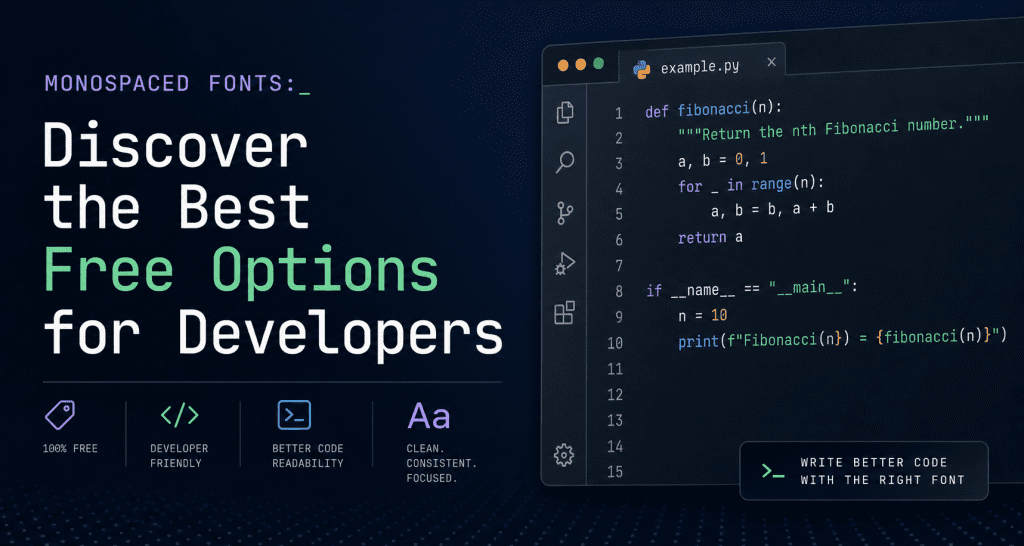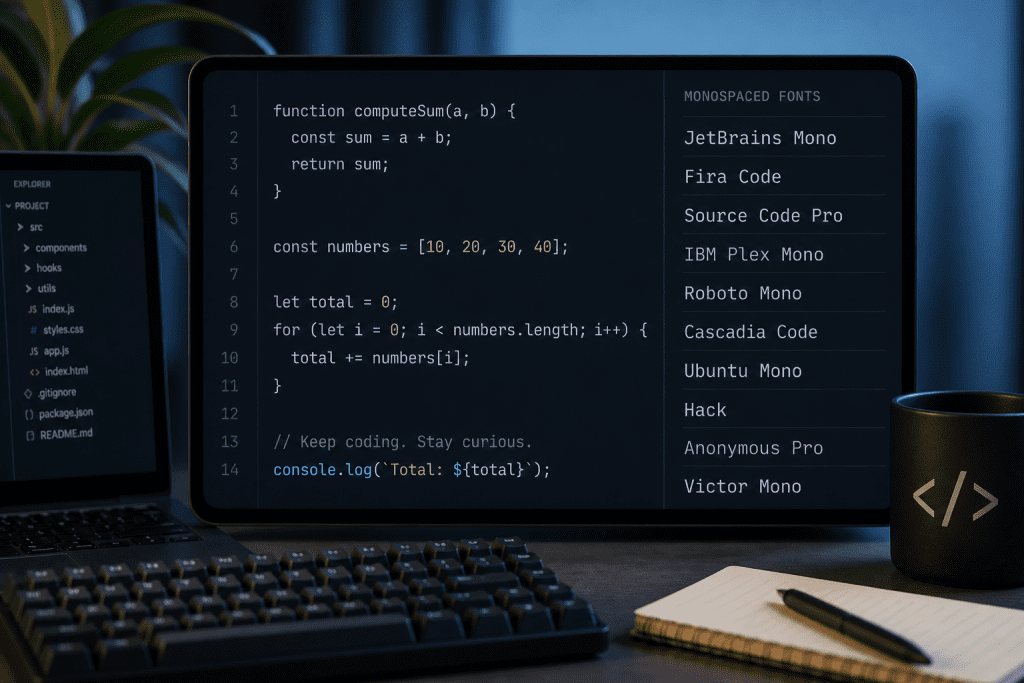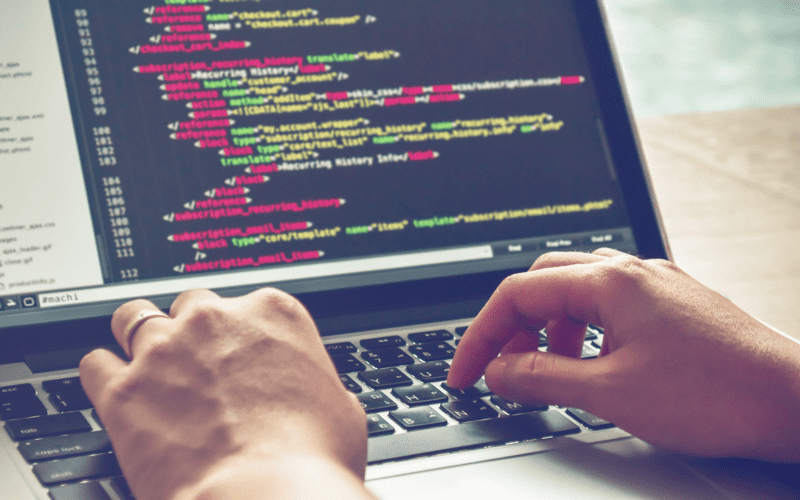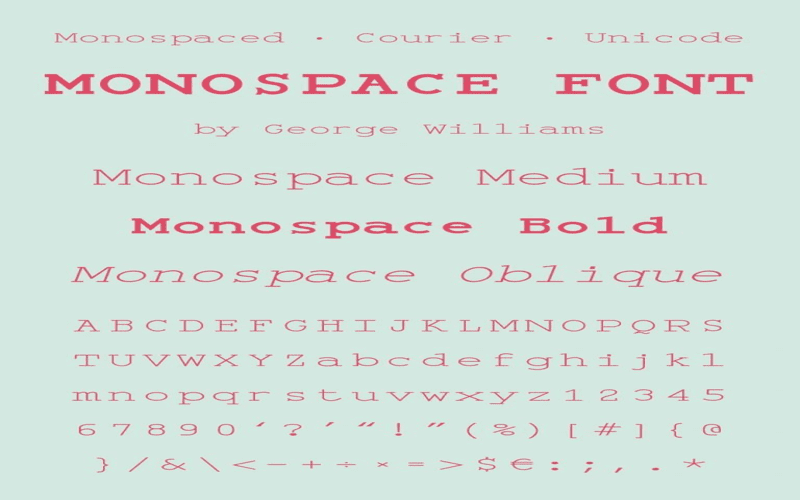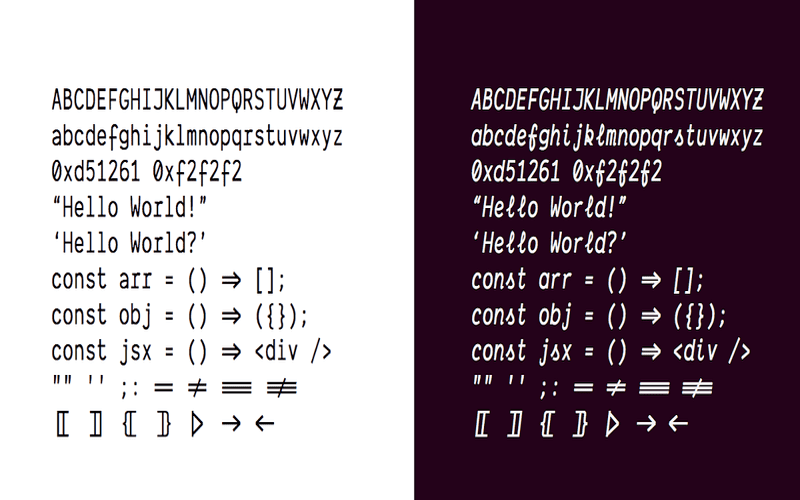
Monospaced Fonts: Discover the Best Free Options for Developers
Monospaced fonts are essential tools for developers and coders, providing a uniform spacing that ensures optimal readability and alignment in code. These fonts play a crucial role in enhancing productivity, as their structure helps programmers differentiate between similar characters like the numeral zero and the letter O. Choosing from the best coding fonts can significantly reduce eye strain and increase focus during those long hours of coding. Moreover, with a myriad of free coding fonts available today, developers can easily find the ideal font that meets their preference and requirements. Understanding the monospaced font benefits can transform your coding practices and make your workflow smoother.
Often referred to as fixed-width fonts or typewriter fonts, monospaced fonts are distinctive in that each character occupies the same horizontal space. These typefaces are particularly vital in programming environments, where precise alignment and clarity are paramount for avoiding errors. Developer fonts like these not only bolster readability but also contribute to a more organized environment when writing complex code. The consistency provided by monospaced characters helps coders maintain focus, reducing cognitive load while navigating through intricate scripts. Ultimately, selecting the right coding font can lead to a more enjoyable and efficient coding experience.
A modern artistic representation of various monospaced fonts used in coding, showcasing readability and character distinction.
Essential Features of Monospaced Fonts
Monospaced fonts are distinct for their uniform character spacing, which translates into better alignment for code. Each letter occupies the same amount of horizontal space, allowing for precise arrangement of commands and making it easier for programmers to identify mistakes. This uniformity is particularly important in programming languages where syntax must be visually coherent.
When choosing a monospaced font, consider how it can enhance your workflow. The clear distinction between characters plays a crucial role as well. For instance, in coding, it is vital that a zero `0` does not look like a letter `O`, and a lowercase `l` is easily distinguishable from the number `1`. A good monospaced font carefully designs these elements to improve legibility.
Understanding Readability and Eye Strain
Readability is paramount for developers spending long hours in front of their screens. A font that is easy on the eyes can significantly reduce fatigue and improve focus while coding. Monospaced fonts, such as Fira Mono or Anonymous Pro, are designed with readability in mind, allowing developers to work without the strain often associated with less optimized typefaces.
Furthermore, it’s not just about how the letters look individually but how they behave together in strings of code. The optimal font size, weight, and contrast all play a role in reducing eye strain. A well-designed monospaced typeface will maintain its clarity and legibility across various sizes, making it a reliable choice for any coding environment.
A Dive into Popular Monospaced Fonts
The landscape of monospaced fonts is vast, with numerous options catering to developers’ preferences. Fonts like Consolas stand out for their high x-height, which enhances character differentiation, making it a top choice among programmers. On the other hand, Inconsolata’s popularity stems from its modern aesthetic paired with functionality, proving that style and substance can coexist in programming fonts.
Despite their similarities, each monospaced font brings its unique character to the table. For example, Fantasque Sans Mono merges a playful handwritten style with legibility, offering a break from traditional aesthetics while still serving its purpose well. Each developer may gravitate toward different features, whether it be the classic vibe of Monaco or the modern appeal of Input, emphasizing how personal preference can influence one’s coding experience.
Exploring Customization and Personal Preference
In the quest for the perfect monospaced font, customization is a key factor. Developers often seek fonts that not only meet their readability needs but also align with their personal taste. Input stands out in this regard as it offers a customizable approach to type design, allowing users to tailor font characteristics such as width and weight, creating a distinctive coding experience.
Moreover, experimenting with different types of monospaced fonts can yield significant benefits. It can help coders uncover what best matches their working style, aiding in the elimination of discomfort during those challenging and lengthy programming sessions. This careful selection process underscores the importance of finding a font that feels right, enhancing both productivity and enjoyment in coding.
A modern coding workspace showcasing various monospaced fonts used by developers.
In conclusion, selecting the right monospaced font is a pivotal decision for developers and coders, directly influencing their coding efficiency and comfort. A well-chosen font enhances not only readability but also productivity, making coding sessions more pleasant. Key takeaways from this guide on the best free monospaced fonts include:
• Uniformity & Spacing: Monospaced fonts ensure that each character takes up an equal amount of space, essential for clearly aligning and distinguishing code elements.
• Readability & Legibility: Choosing a font that is easy to read reduces eye strain, making it easier to focus during long programming tasks.
• Character Distinction: Good coding fonts minimize confusion by clearly differentiating similar characters, which is critical in programming.
• Variety of Options: The selection ranges from classic to modern fonts, allowing developers to choose one that fits both their functional needs and personal style.
• Personal Preference: Individual comfort should dictate font choice; experimenting with different styles can lead to finding the perfect match for one’s coding habits.
Ultimately, investing time in selecting a font tailored to your coding needs can significantly enhance your programming experience.